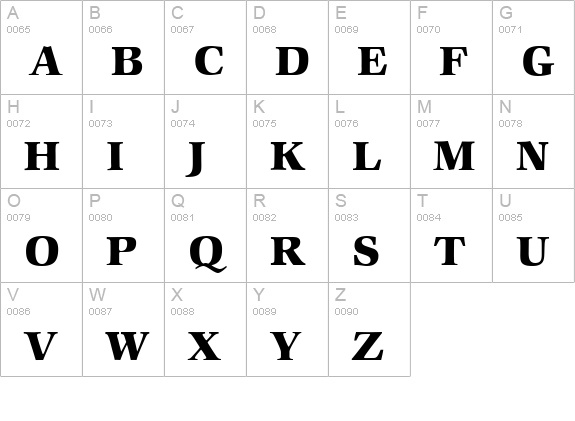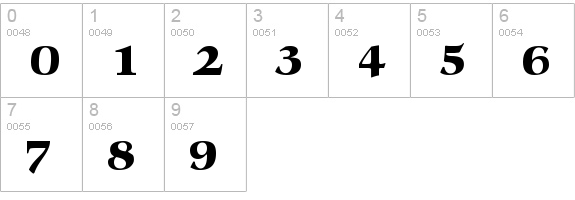
C792-Roman-Bold Font Details
C792-Roman-Bold is a strong, high-contrast variant in the C792 typeface family \xE2\x80\x94 well suited to headlines, attention-grabbing titles, and strong calls-to-action.
C792-Roman-Bold font is a modern typeface that exudes elegance and sophistication. With its bold and commanding presence, this font is perfect for making a statement in your designs. Its clean lines and sharp edges give it a contemporary yet timeless appeal, making it versatile for a wide range of projects. What sets C792-Roman-Bold font apart is that it is available for free download at FontsMarket.com. This means that you can easily access this high-quality font without any cost, allowing you to elevate your designs without breaking the bank. Whether you're creating branding materials, posters, invitations, or any other design project, C792-Roman-Bold font is sure to make a lasting impression. Download it today and see the difference it can make in your work!